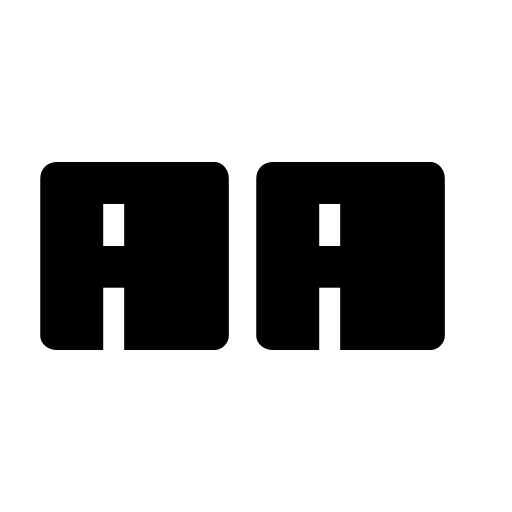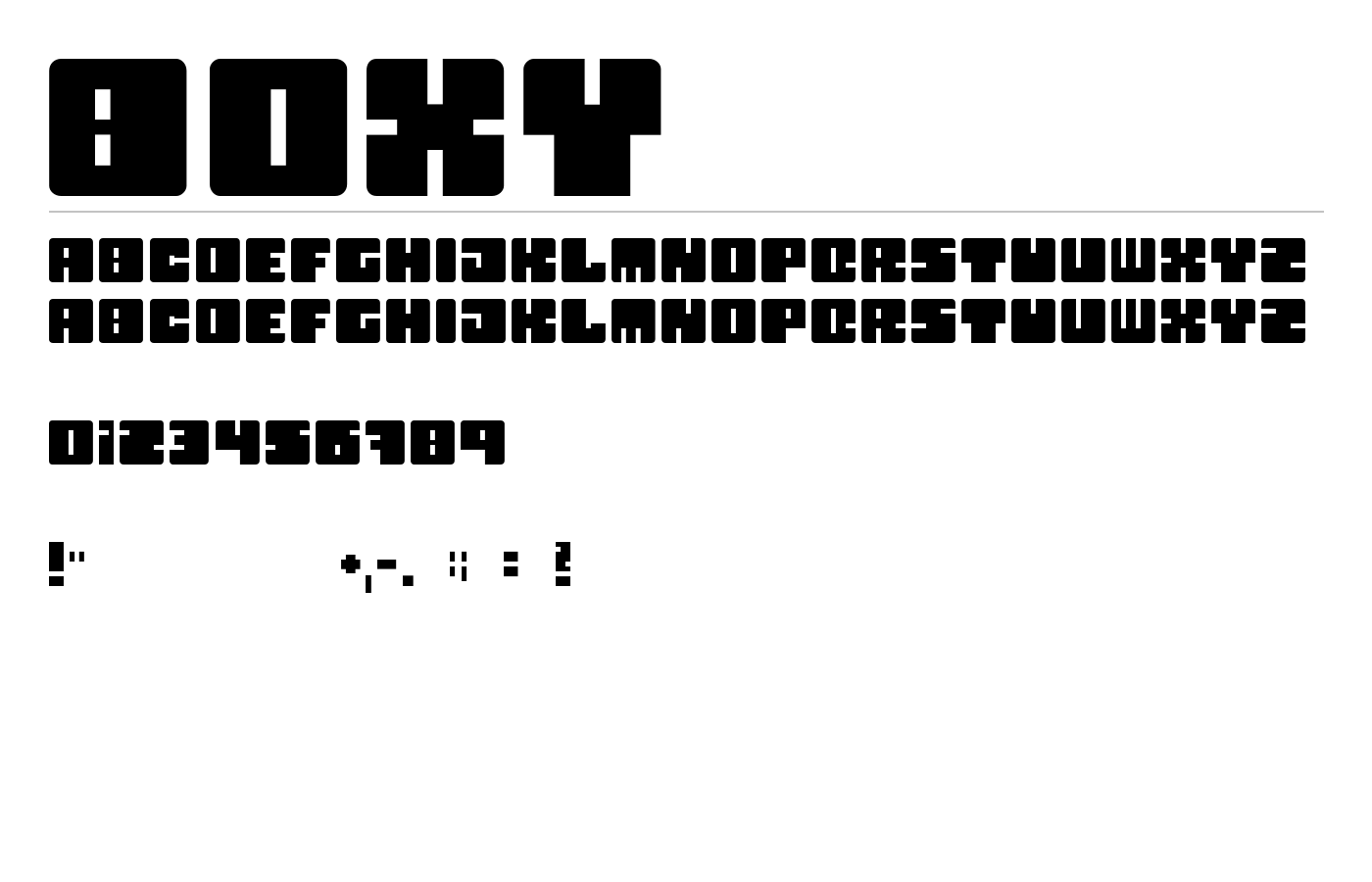
Boxy Font is a bold, geometric sans serif with a strong square-shaped design and thick, uniform strokes that create a modern, tech-inspired look. Its rigid, blocky forms give it a playful yet commanding presence, making it ideal for headlines, logos, and digital branding that need a futuristic or game-like vibe. This font works best in display contexts where its chunky letterforms can stand out and grab attention.
Boxy Font
About Boxy Font